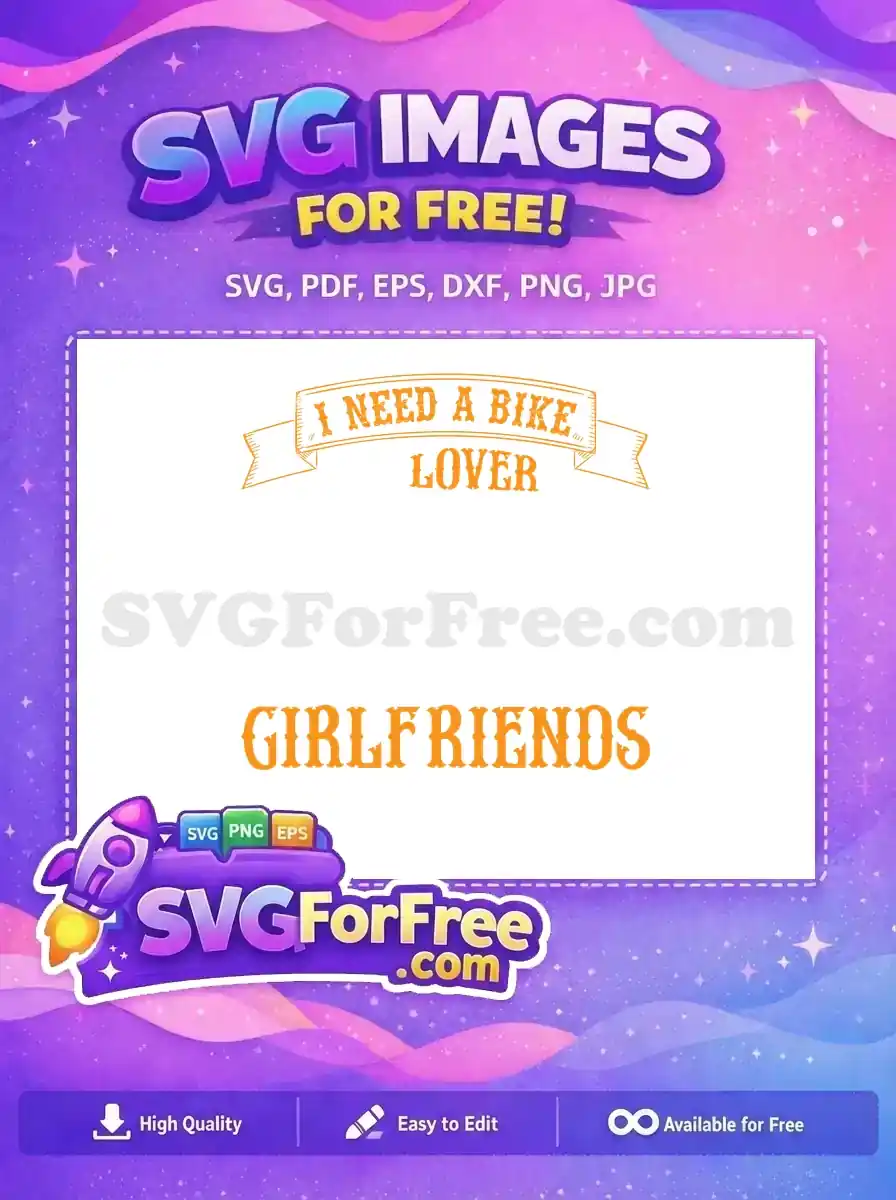
Free Orange Distressed Font Free Biker Lover Quote Motorcycle Free SVG – Instant Download
Grab this free design: a unique, distressed text graphic for bike enthusiasts and their partners. Perfect for apparel or digital projects.
Free Orange Distressed Font Free Biker Lover Quote Motorcycle Free SVG